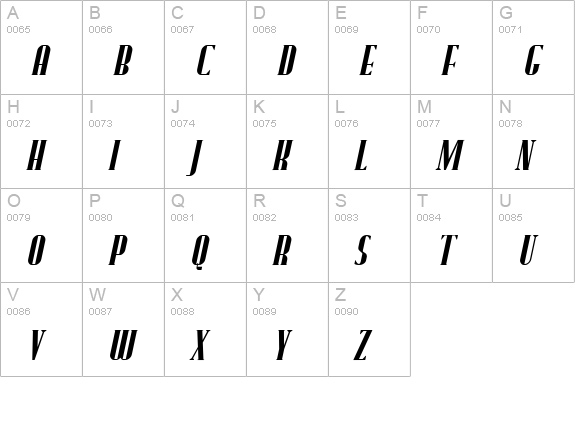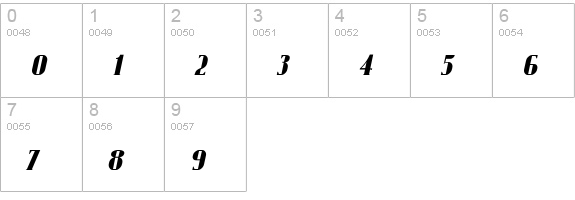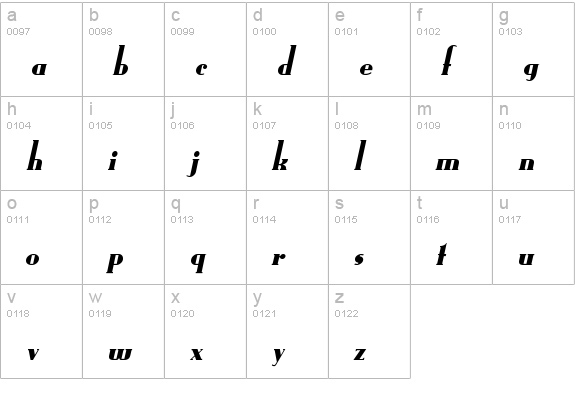
Fund-Runo is a sleek and modern font that exudes elegance and sophistication. With its clean lines and stylish curves, Fund-Runo is perfect for a wide range of design projects, from branding to editorial design. This versatile font is ideal for creating eye-catching headlines, striking logos, and professional-looking documents. What sets Fund-Runo apart is that it is available for free download at FontsMarket.com. This means that you can easily access this high-quality font without any cost, making it a valuable addition to your font library. Whether you are a graphic designer, a web developer, or a creative professional, Fund-Runo offers endless possibilities for your creative projects. Dive into the world of Fund-Runo and discover how this exceptional font can elevate your designs to the next level. Download it for free today at FontsMarket.com and unleash your creativity with this stunning typeface.